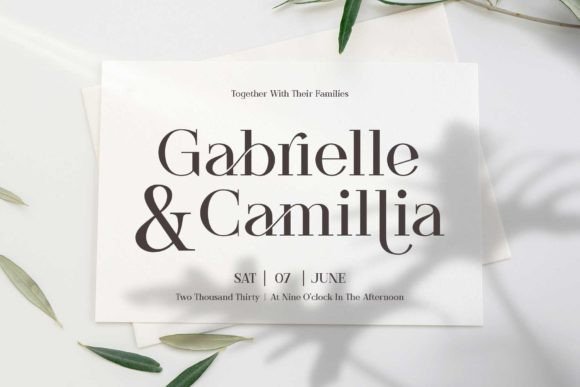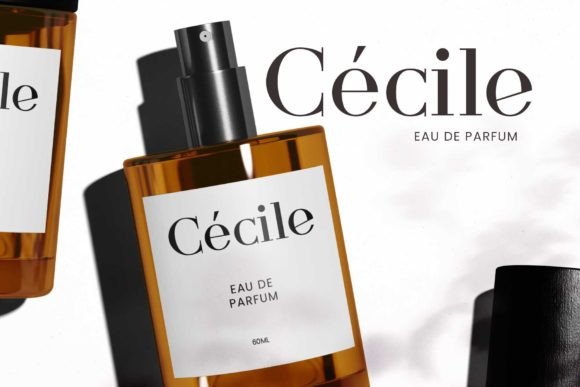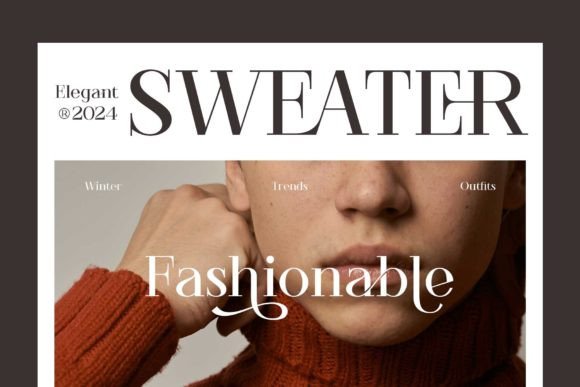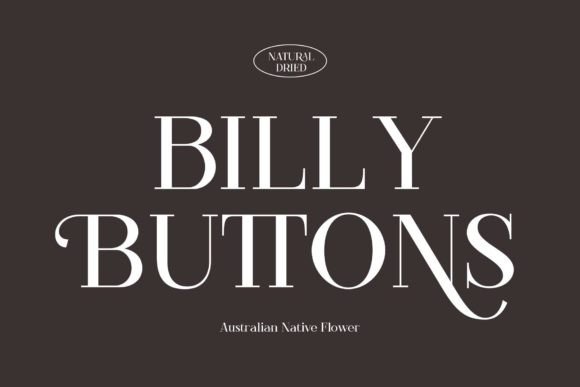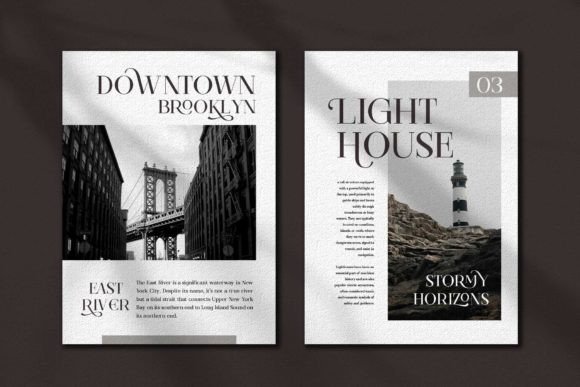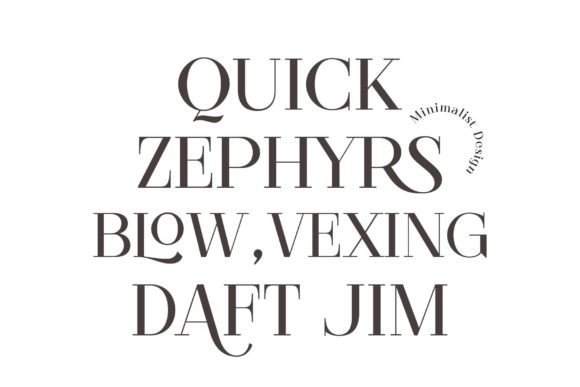
The Designer’s Delight: Gamile Font
I still remember the frustration of working on a project, determined to find the perfect font that would elevate my design from ordinary to extraordinary. My client was a high-end fashion brand, and I needed a font that exuded elegance, sophistication, and a touch of modernity. After hours of scouring through font libraries, I stumbled upon Gamile – a modern, classy serif typeface that instantly caught my attention. In this article, I’ll share my experience with Gamile, its features, and how to make the most of this beautiful font.
First Impressions: A Love Affair with Gamile
Gamile is a stunning serif typeface that effortlessly blends classic typography with a contemporary twist. Its smooth curves, solid strokes, and chic minimalism make it a perfect choice for designs that demand sophistication and style. Here are some features that I absolutely love about Gamile:
- ✨ Elegant and refined design, perfect for high-end brands
- ✅ Smooth curves and solid strokes for a luxurious feel
- 🎨 Numerous stylistic alternates for a customized look
- 📈 Perfect for logos, invitations, cards, labels, fashion, furniture, mobile apps, editorials, and magazines
The Not-So-Perfect: A Few Quirks
While Gamile is an exceptional font, there are a few minor limitations to be aware of:
- 🤔 Limited availability of certain characters in some font formats
- ⚠️ May require manual adjustments for optimal kerning
The Story Behind Gamile
Gamile was designed with the intention of creating a modern serif typeface that would cater to the needs of designers seeking elegance and sophistication. Inspired by classic serif typography, Gamile’s creator aimed to infuse it with a contemporary twist, making it perfect for designs that demand a touch of luxury.
- Q: What type of designs is Gamile best suited for?
- A: Gamile is perfect for logos, invitations, cards, labels, fashion, furniture, mobile apps, editorials, and magazines.